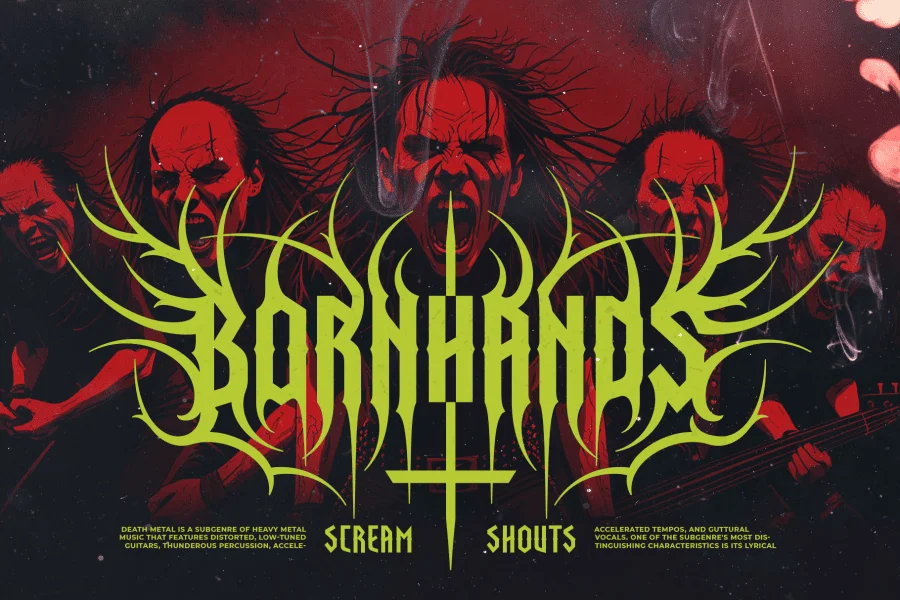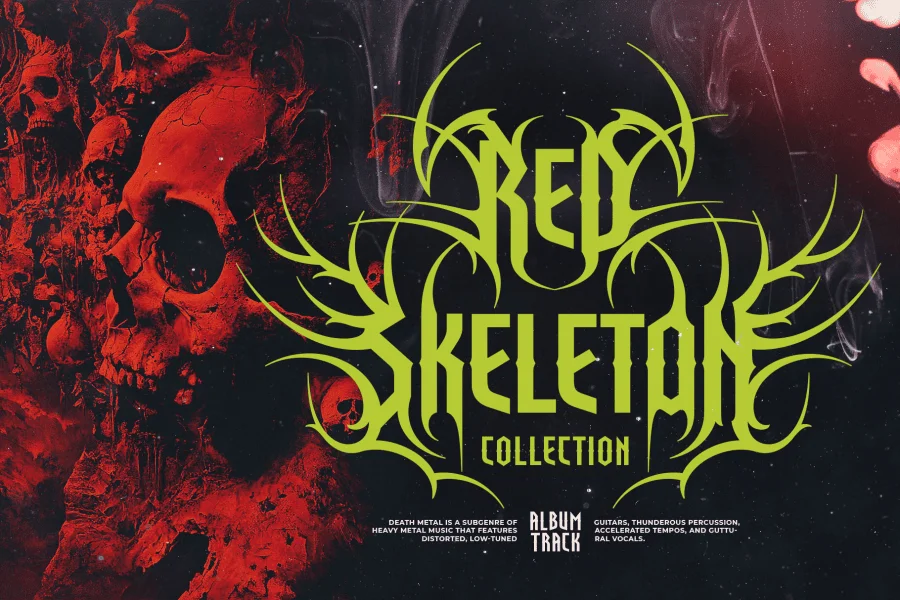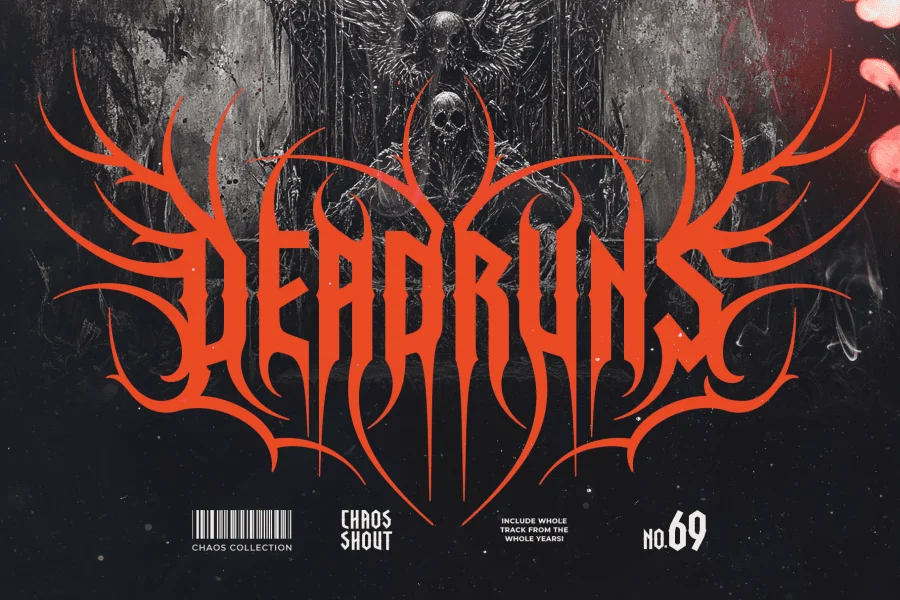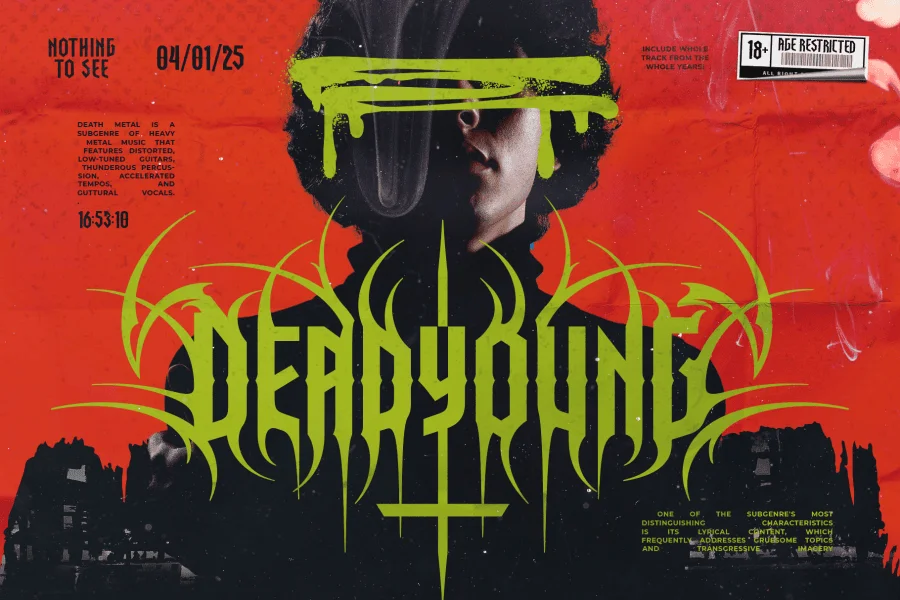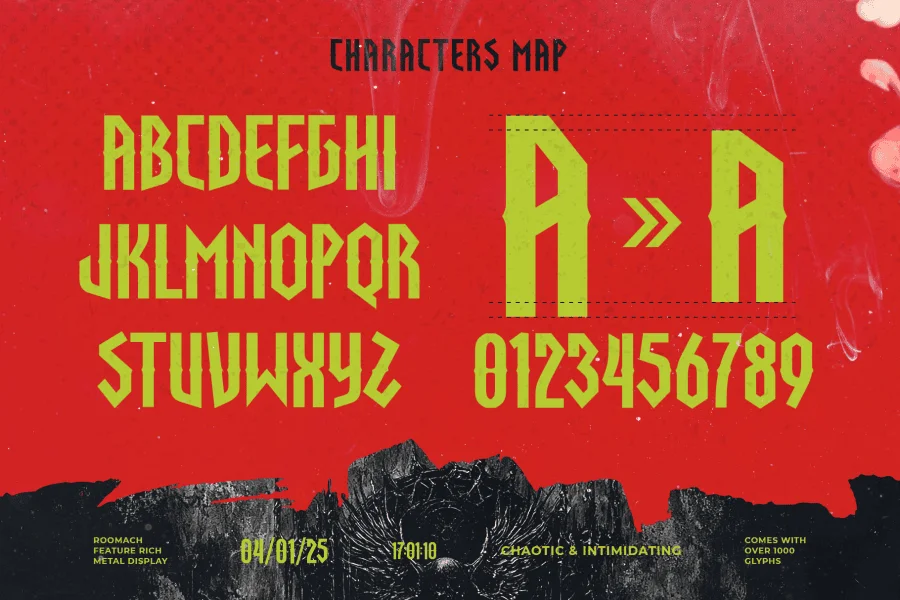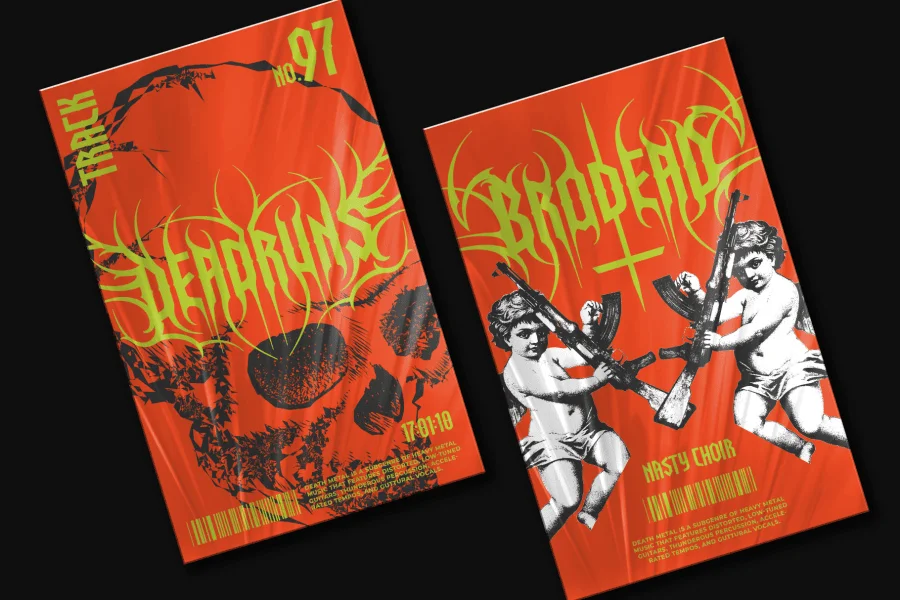
Roomach Typeface: The Ultimate Death Metal Font
Unleash chaos and modern darkness with Roomach Typeface—a bold, unapologetic death metal font forged in the fires of hell. Featuring sharp thorns, menacing horns, and a contemporary edge, this typeface is the perfect fusion of brutality and sophistication. Whether you’re creating album covers, band logos, merchandise, or anything else that screams rebellion, Roomach brings the heat.